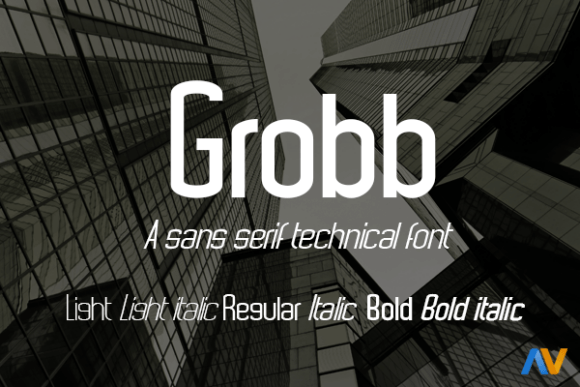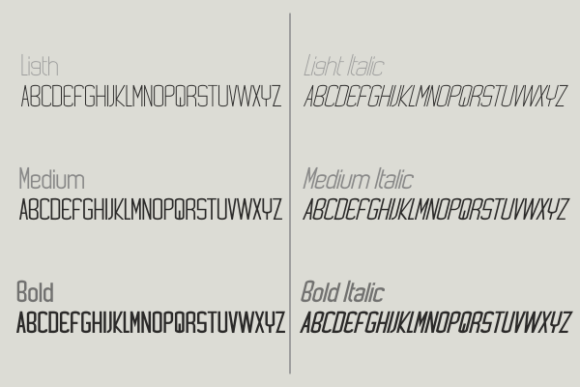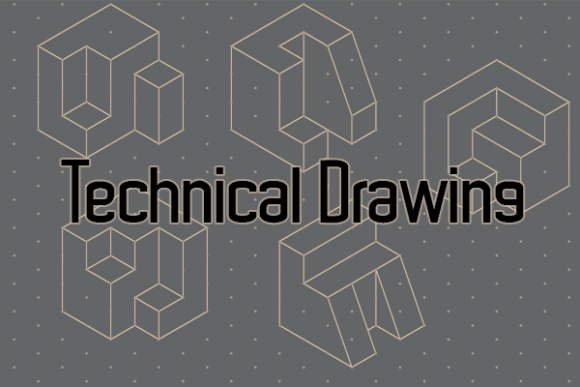
Discover the Perfect Balance of Clean Design with Grobb Font
Have you ever found yourself staring at a blank canvas, searching for the perfect font to bring your creative vision to life? It’s a moment we’ve all been through, and it’s what makes discovering a great font like Grobb so exhilarating. This sans serif masterpiece, crafted by Alberto Villanueva in 2016, has been a go-to choice for designers seeking a clean and functional aesthetic.
The Grobb Font family offers six distinct styles, each delivering a unique visual impact that’s perfect for a wide range of creative endeavors. Whether you’re working on a digital project or a print piece, Grobb’s precise shapes and modern lines make it an ideal choice. Plus, with its extended portfolio including web fonts and vectors, designers have unparalleled flexibility to bring their ideas to life.
Grobb Font Key Features
- Font Family: Grobb Font is a unique, modern sans-serif font family designed to provide a clean and professional look for various applications.
- Character Set: The Grobb Font family includes a wide range of characters, including uppercase and lowercase letters, numbers, punctuation marks, and special characters, supporting multiple languages.
- Unique Characteristics: Grobb Font features a distinctive, geometric design with rounded edges, making it perfect for modern designs, corporate branding, and digital interfaces.
Grobb Font Review
As a designer, I was excited to try out the Grobb font, and I have to say it has some great qualities. ✨ First of all, its unique blend of modern and traditional elements makes it perfect for projects that need a touch of elegance without looking too formal. ✨ The font’s versatility allows it to work well in a variety of settings, from headings to body text, and even for creating custom logos. ✨ Additionally, the font’s high x-height makes it easy to read, even at smaller font sizes.
However, there are a few limitations to keep in mind. ⚠️ One of the main issues I have with the Grobb font is its limited language support. ⚠️ While it does include a wide range of Latin-based languages, it falls short when it comes to languages that use non-Latin scripts, such as Chinese, Japanese, or Arabic. ⚠️ Additionally, the font’s OpenType features could be more extensive, which might limit its use in advanced design projects.
Overall, I think the Grobb font is a solid choice for designers who need a high-quality, versatile font for their projects. While it may have some limitations, its unique style and high x-height make it a great option for a wide range of applications.
Recommendation
I would recommend the Grobb font to designers who:
- Need a font with a unique, elegant style.
- Want a font that works well in a variety of settings.
- Are looking for a font with high x-height for easy readability.
However, I would caution against using the Grobb font for projects that require extensive language support or advanced OpenType features.
Tips for Getting the Most Out of Grobb Font
To get the most out of the Grobb Font, consider the following tips:
- Use it for titles and headings to create a bold and eye-catching effect.
- Pair it with a clean and simple font for body text to create a balanced design.
- Experiment with different font sizes and colors to create a unique visual identity.
The Grobb Font is commonly used for:
- Branding and marketing materials (e.g., logos, business cards, etc.).